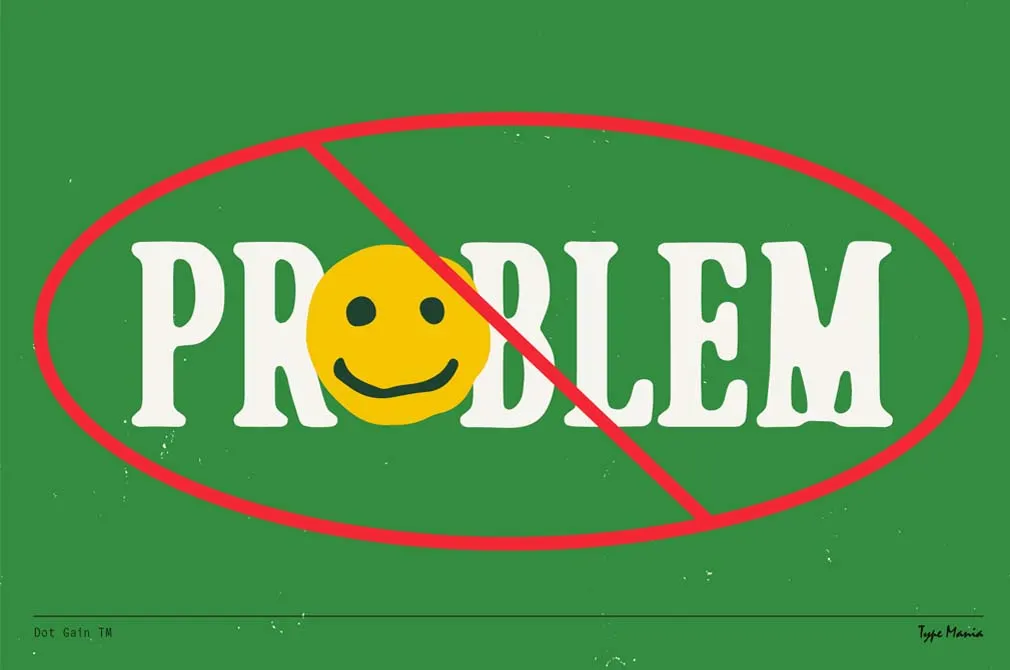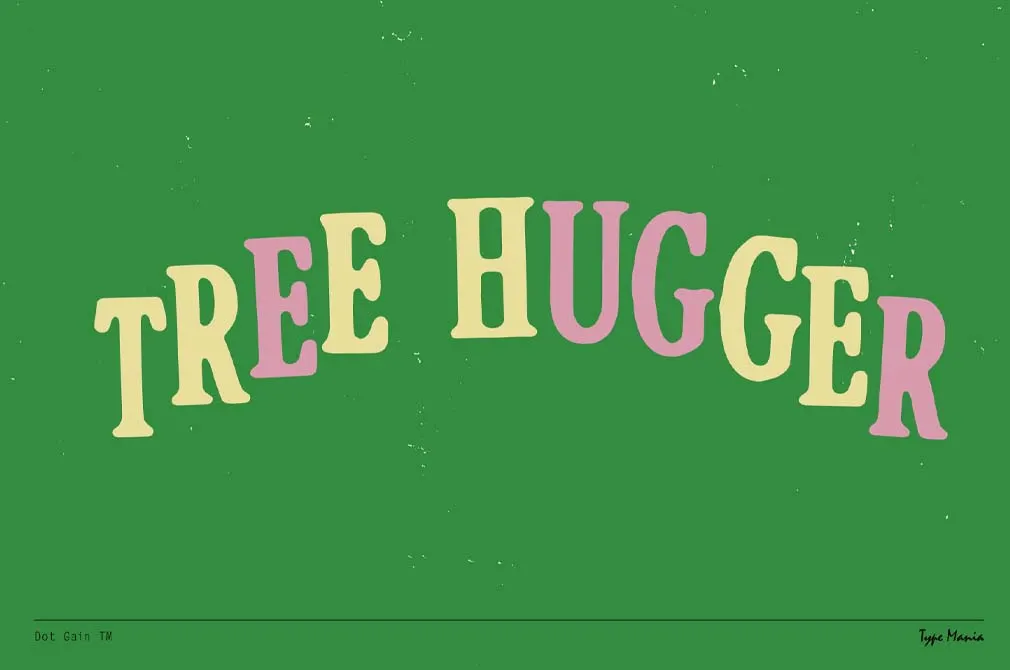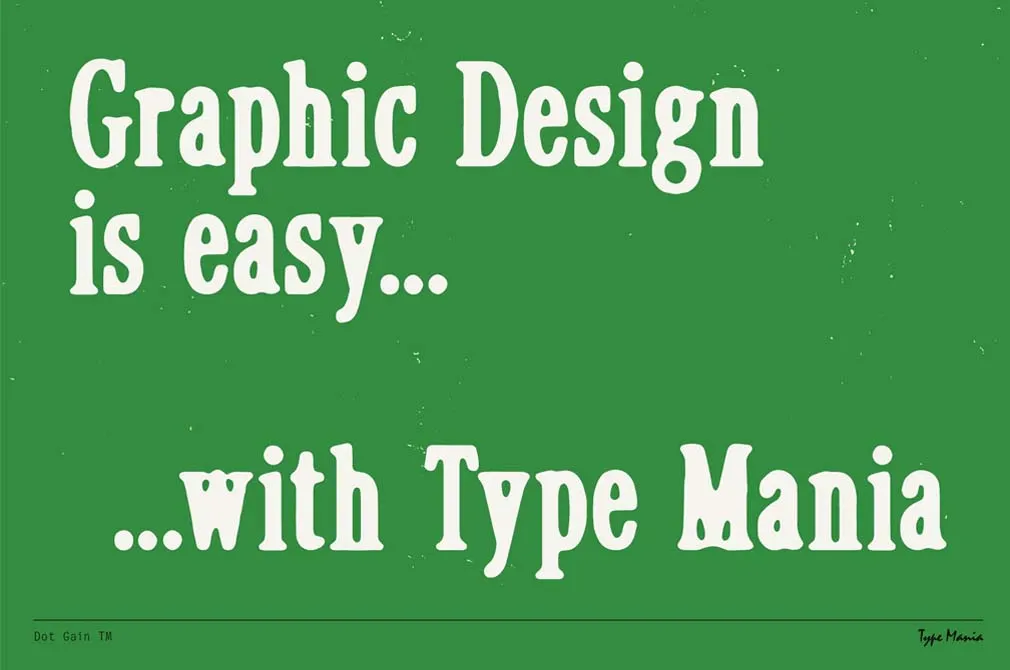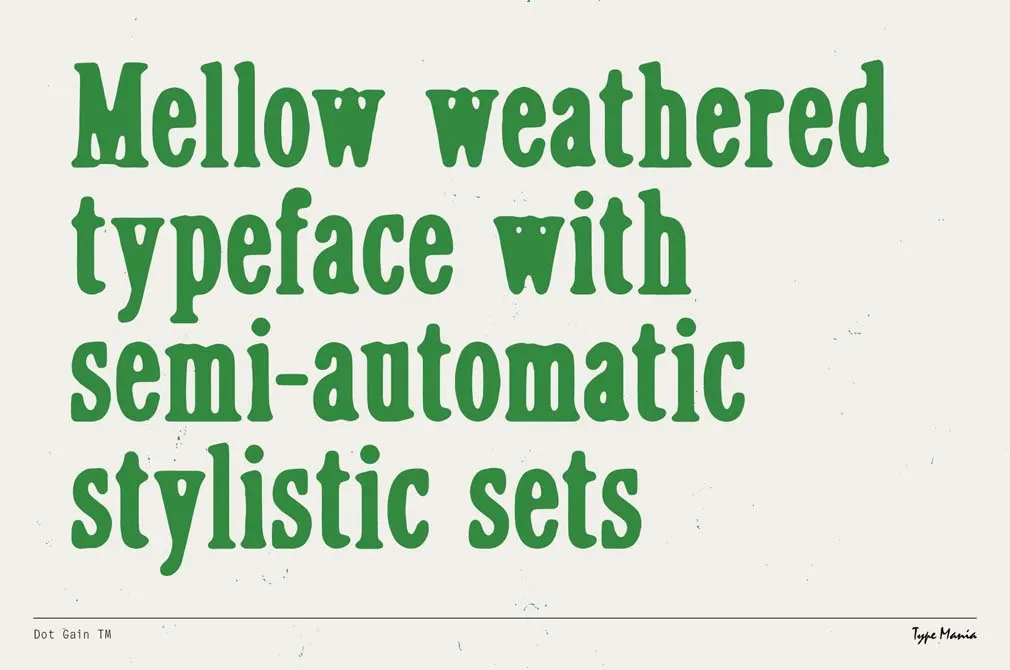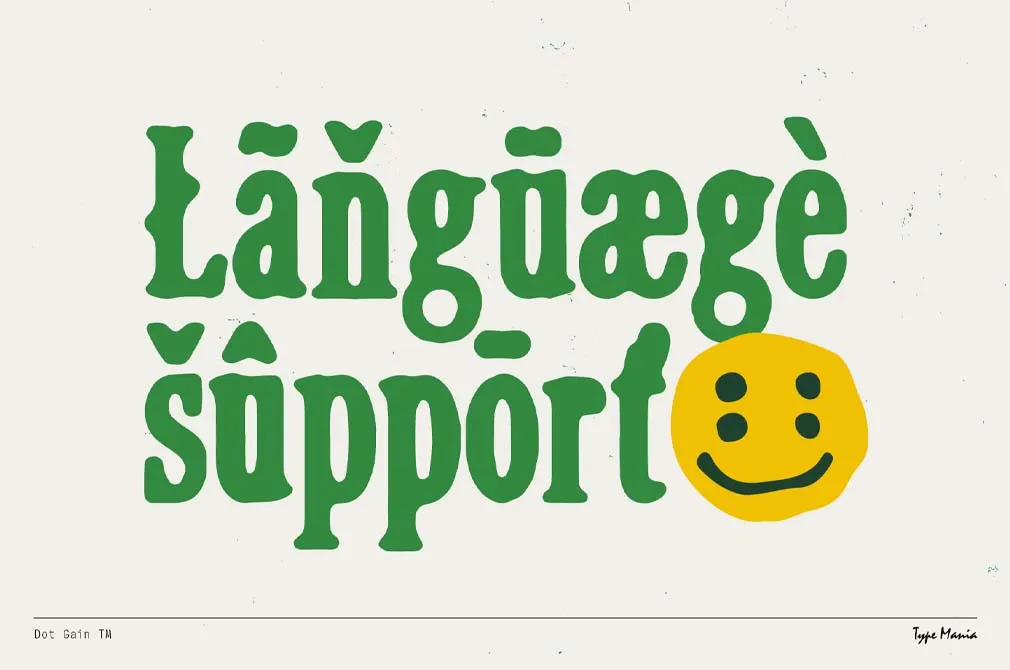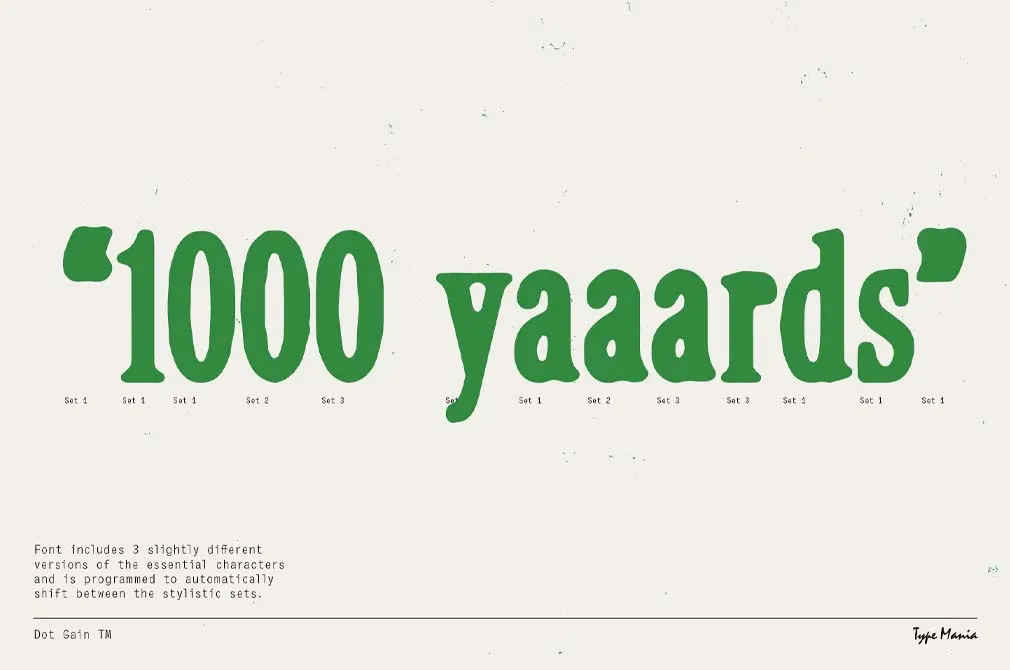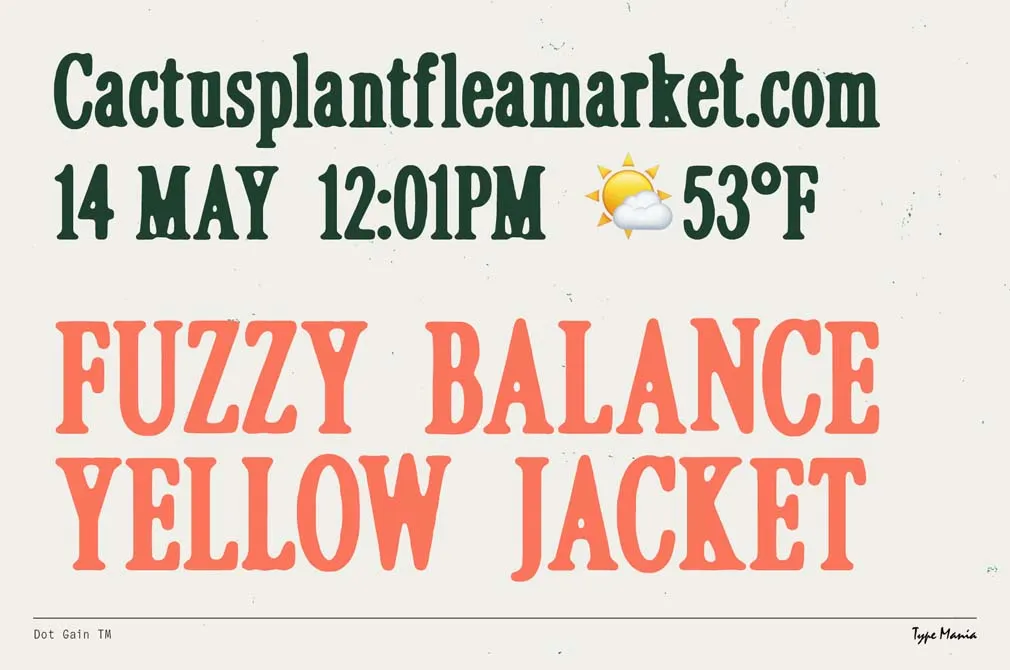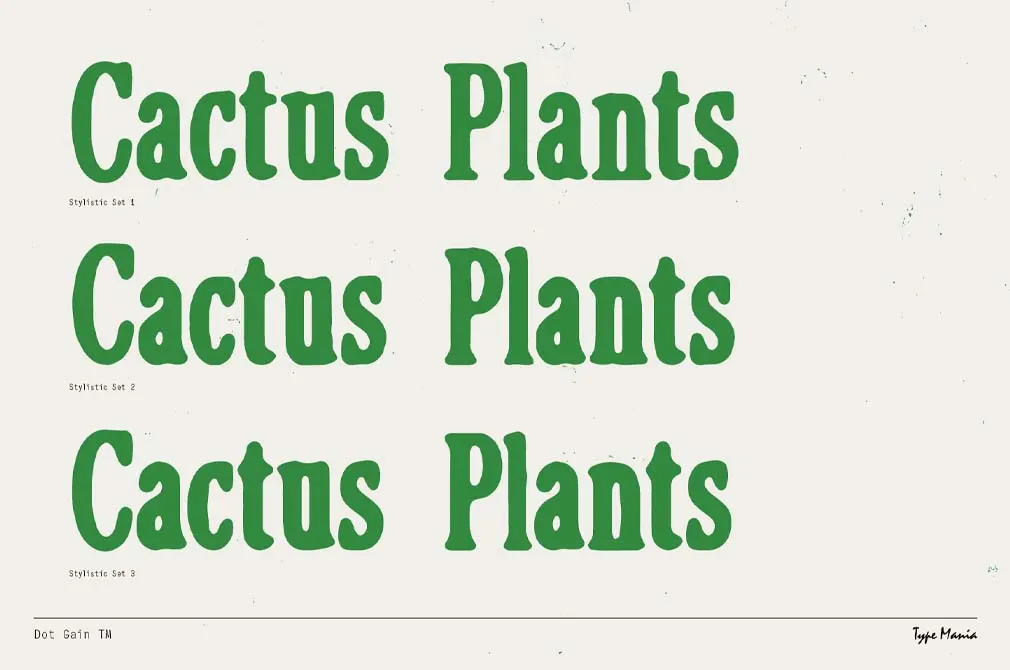
Dot Gain TM — Cozy Serif
We like our serifs like we love our Y2K: gritty, bold, and totally awesome. This one reminds you of lukewarm days when you used to spend the time on doing graffities and watching MTV. Thank design it’s possible to revive the same on digitals!
The text gives off authentic stencil graffiti vibes. But it turned out you spray-painted way too much, so you got a whale of smudges on the letters. Did they make it worse? Oh hell no! We got a complete character set: it contains a total of 586 glyphs (multilingual support is featured too) and 3 diffrent font styles. Make sure you make a Y2K-inspired music festival poster, create a '00s project, or even elaborate a Bristol sound band identity.